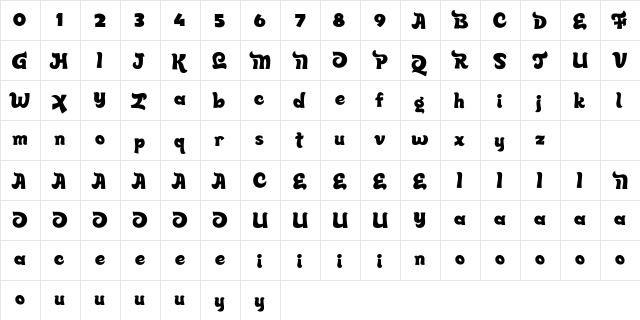
Quincy Jhons Regular
| Foundry | TKK Studio |
| Designer | Sahirul |
Design Context for Quincy Jhons Typeface
Quincy Jhons is a composed and adaptable typeface that performs quietly and consistently across a wide range of design contexts.